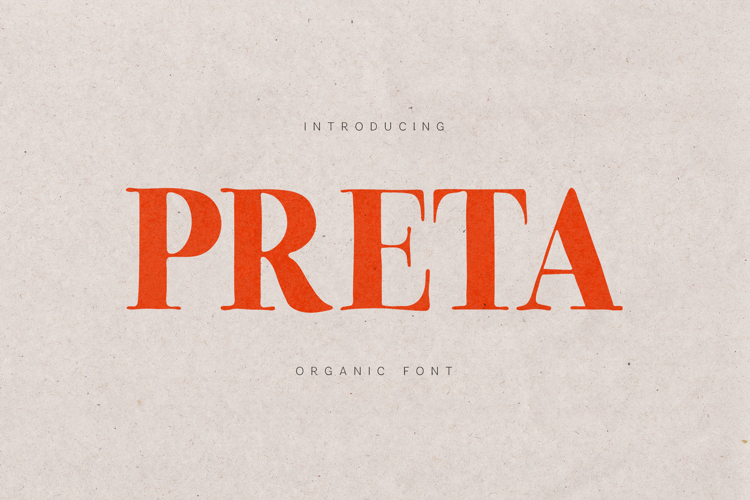
Preta Organic Serif Font
Preta is an organic serif font designed with warmth, balance, and subtle character. Its softly sculpted letterforms, gentle contrast, and natural rhythm give it an elegant yet approachable presence that feels human, timeless, and expressive.
Perfect for branding, editorial design, packaging, book covers, magazines, quotes, and lifestyle projects, Preta brings a refined organic tone that sits beautifully between classic serif tradition and modern sensibility.
The font’s organic details add personality without overpowering readability, making it ideal for both display typography and short text settings. Preta works especially well for sustainable brands, creative studios, cultural projects, and premium print designs.
If you’re looking for a serif font that feels calm, organic, and beautifully crafted, Preta offers timeless elegance with a natural soul.